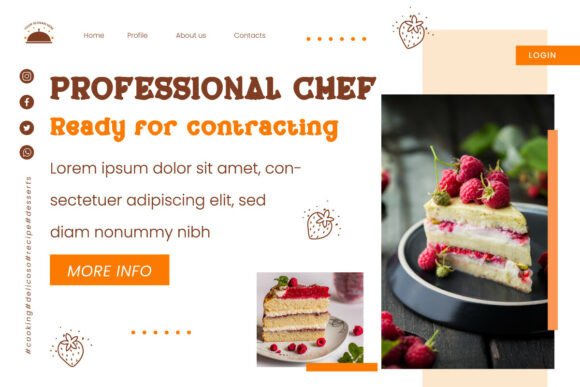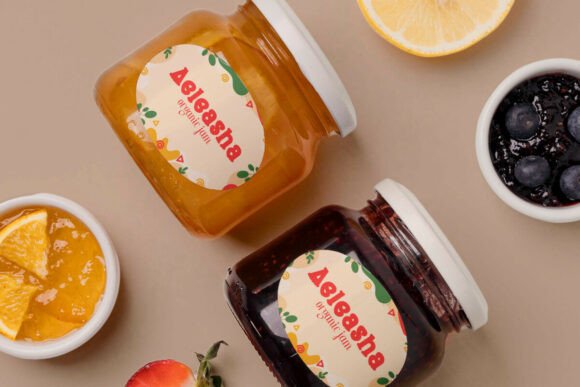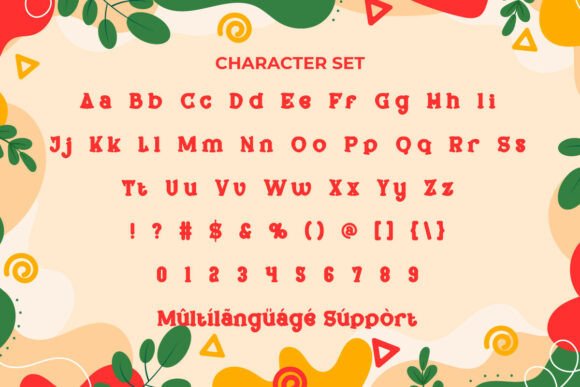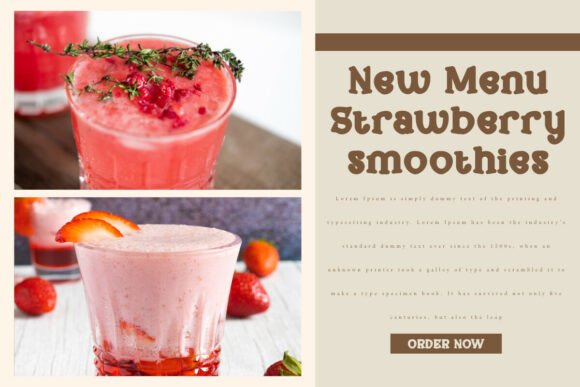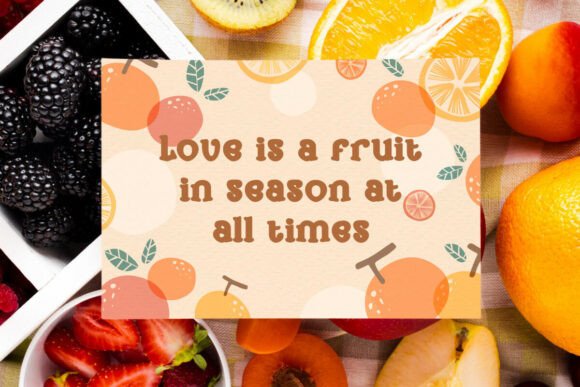
Introducing Guavasmoothies Font: Add a Sweet Touch to Your Designs
Are you looking for a font that can add a playful and cheerful touch to your designs? Look no further than Guava Smoothies, a fun and versatile display cartoon font that’s perfect for a wide range of projects. Inspired by cute children’s handwriting, this bold and cheerful font is sure to make your designs stand out.
What is Guava Smoothies Font?
Guava Smoothies is a rounded, monoline font that’s designed to add a sweet touch to any project. Its playful and fun personality makes it perfect for designs that require a cheerful and youthful vibe. The font features a complete set of uppercase and lowercase letters, numbers, punctuation, and symbols, making it a versatile choice for a wide range of designs.
Perfect for Food and Beverage Industry
Guava Smoothies is especially well-suited for brands in the food and beverage industry, such as bakeries, cafés, and restaurants. Its joyful and refreshing harmony is perfect for creating designs that are both expressive and fun. Whether you’re designing a logo, brochure, or product packaging, Guava Smoothies is sure to add a touch of sweetness to your designs.
Key Features of Guava Smoothies Font
- Complete set of characters: Guava Smoothies includes a complete set of uppercase and lowercase letters, numbers, punctuation, and symbols.
- Multilingual support: The font is multilingual, making it perfect for designs that require support for multiple languages.
- Accessible: Guava Smoothies is designed to be fully accessible, making it perfect for designers who need to create designs that are inclusive and accessible.
Use Cases for Guava Smoothies Font
Guava Smoothies is a versatile font that can be used for a wide range of designs, including:
- Brochures: Add a playful touch to your brochures with Guava Smoothies.
- Greeting cards: Create cheerful and fun greeting cards with Guava Smoothies.
- Logos: Use Guava Smoothies to create a playful and memorable logo for your brand.
- Product packaging: Add a sweet touch to your product packaging with Guava Smoothies.
Why Choose Guava Smoothies Font?
There are many reasons why Guava Smoothies is a great choice for designers and crafters. Here are just a few:
- Unique and playful: Guava Smoothies is a unique and playful font that’s sure to make your designs stand out.
- Versatile: The font is versatile and can be used for a wide range of designs.
- Accessible: The font is designed to be fully accessible, making it perfect for designers who need to create designs that are inclusive and accessible.
Guava Smoothies is a fun and versatile display cartoon font that’s perfect for designers and crafters who want to add a playful touch to their designs. With its complete set of characters, multilingual support, and ease of use, Guava Smoothies is a great choice for a wide range of designs. Whether you’re designing a logo, brochure, or product packaging, Guava Smoothies is sure to add a sweet touch to your designs.